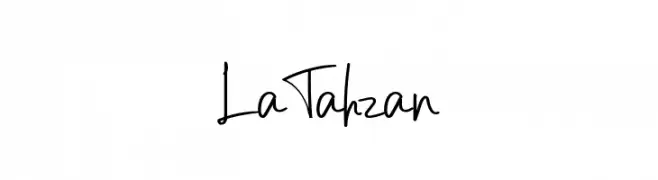
A bold, angular, and oblique font with a futuristic and dynamic style.
A bold, textured font with a hand-drawn brush stroke style.
A dynamic and flowing script font with elegant cursive letterforms.
A playful, casual handwritten font with fluid strokes and a dynamic appearance.
A bold, angular font with a graffiti-inspired, edgy design.
A bold, condensed font with a shadow effect for impactful designs.
An elegant script font with fluid, sweeping strokes and graceful curves.
A hand-drawn, charcoal-style font with an organic and playful appearance.
A classic serif font with strong readability and elegant design.